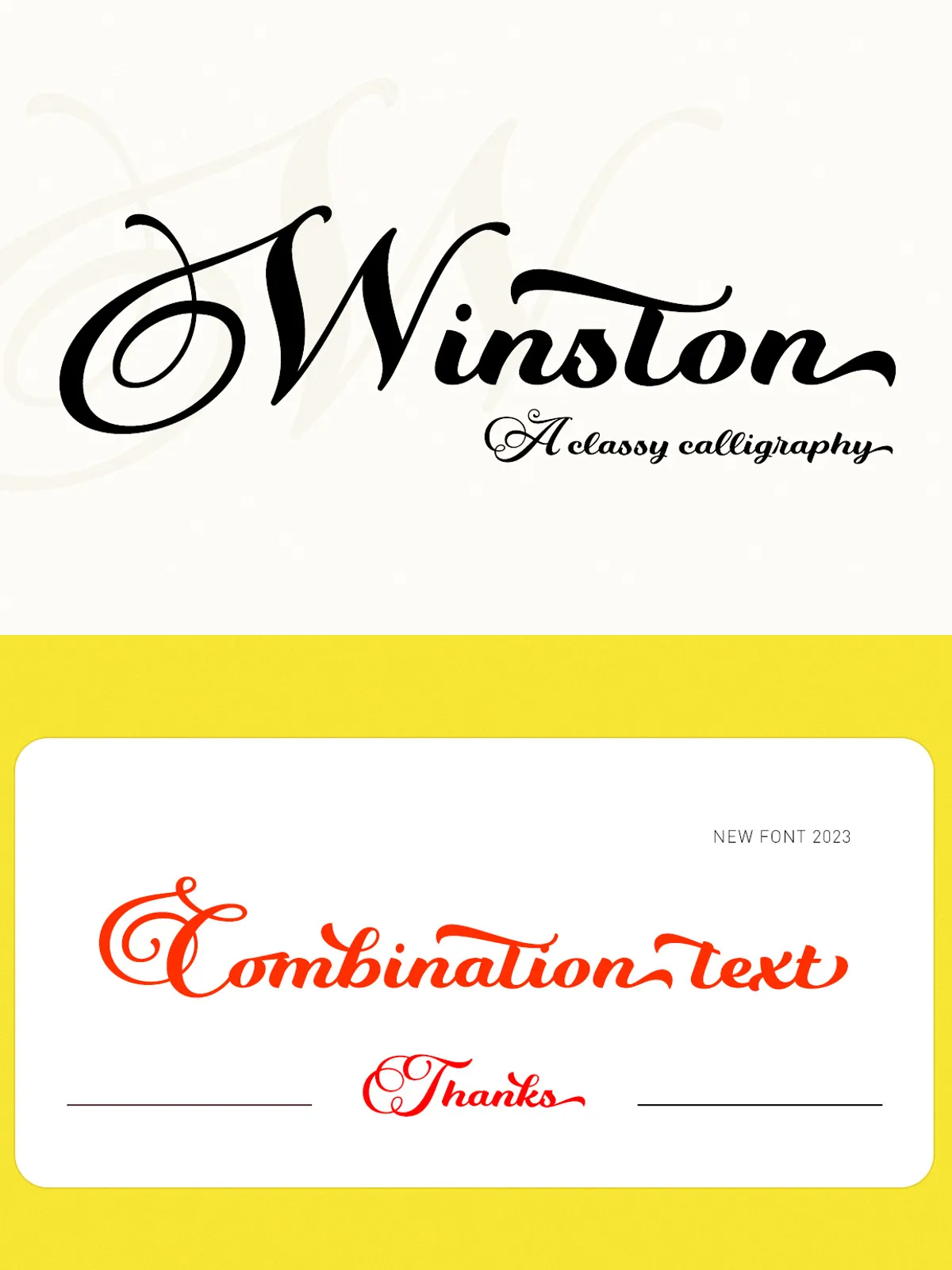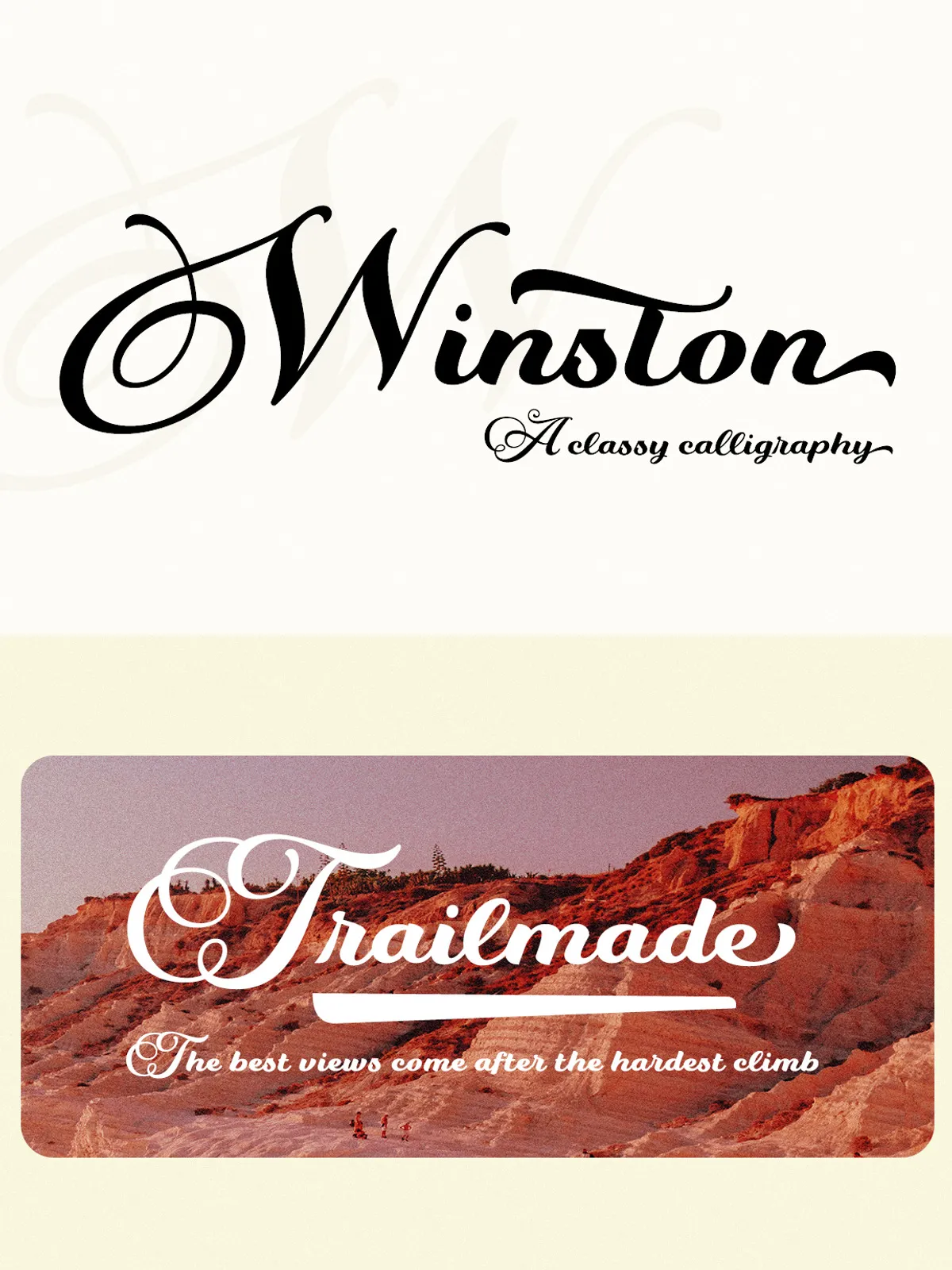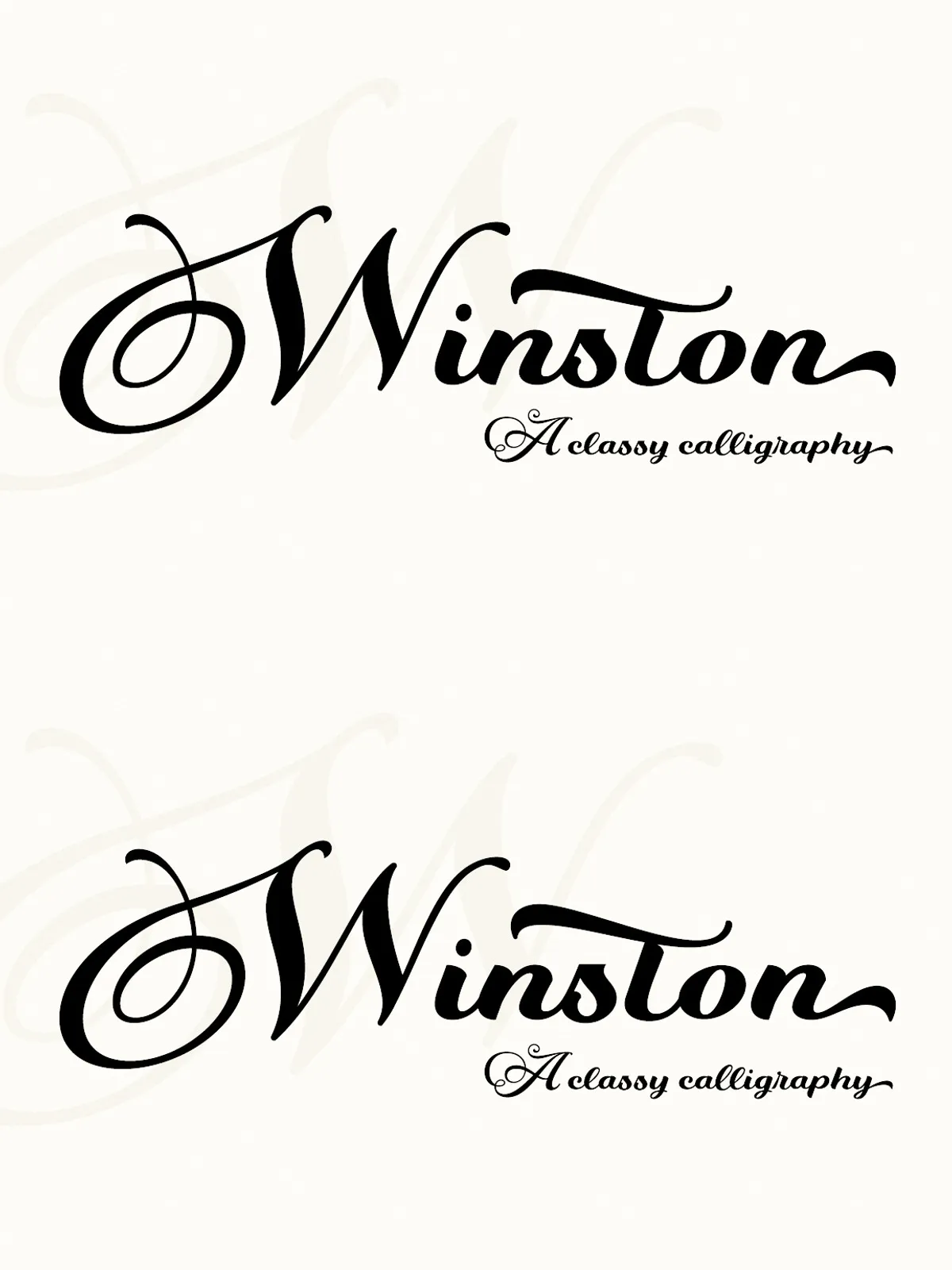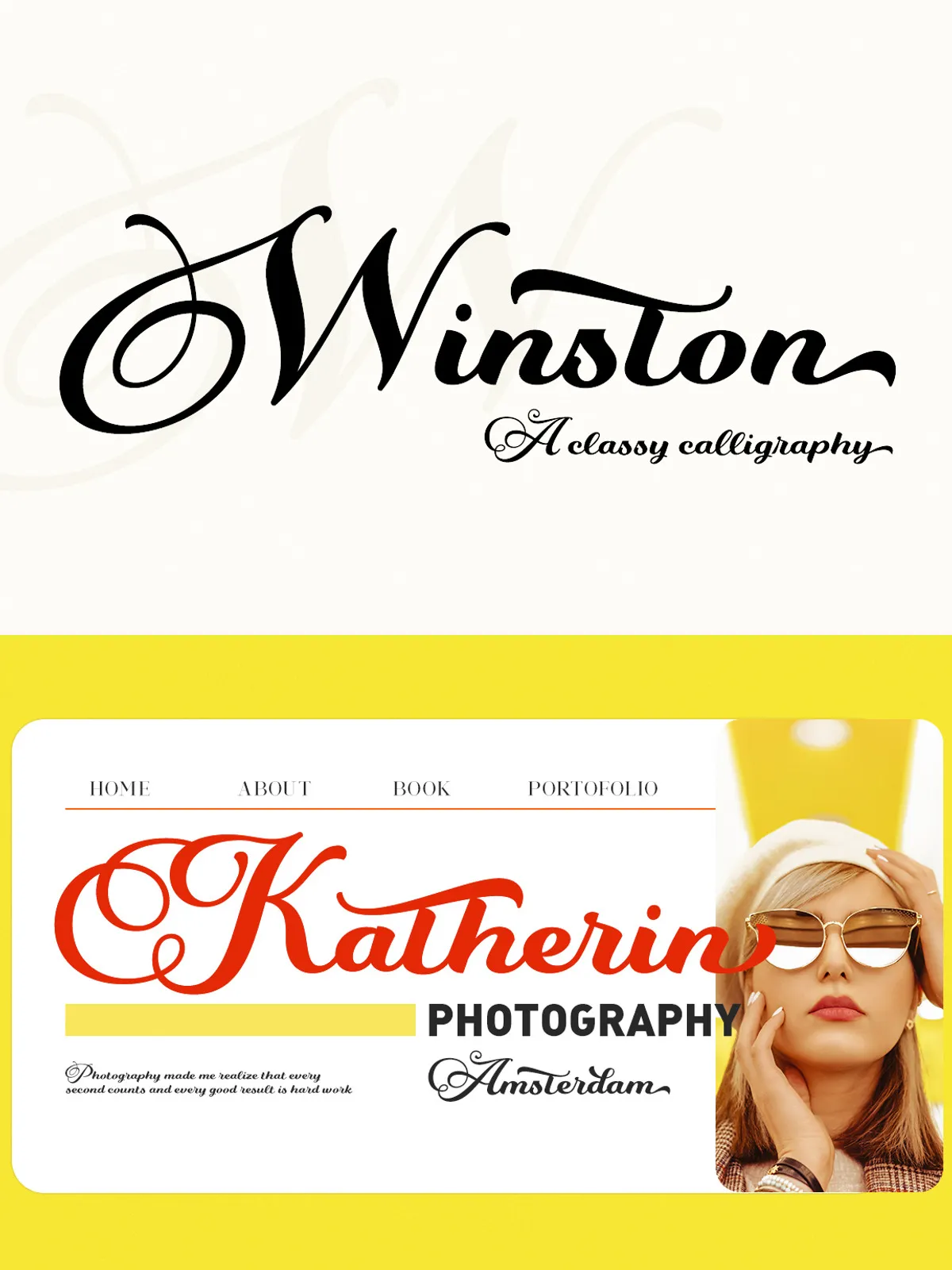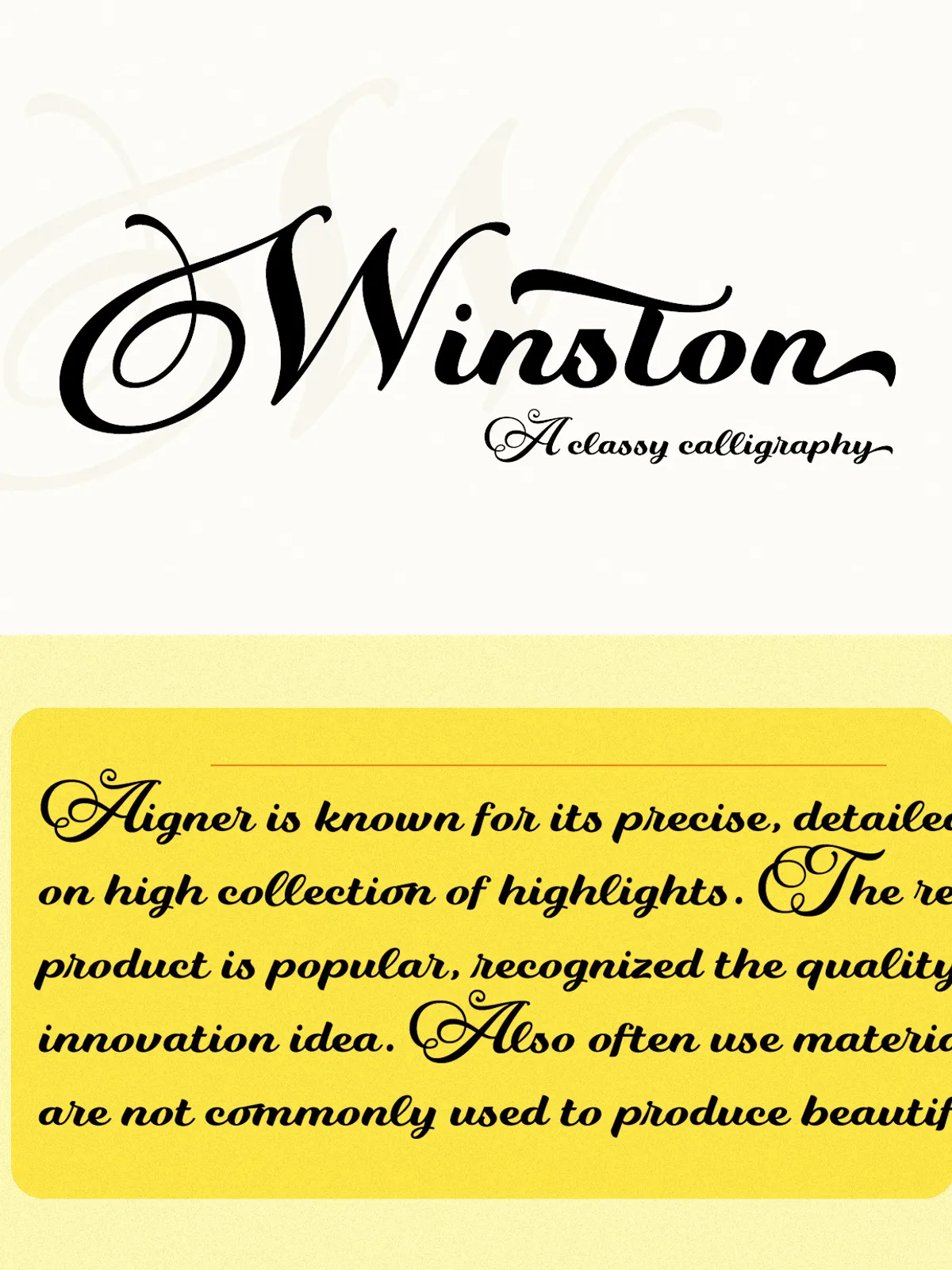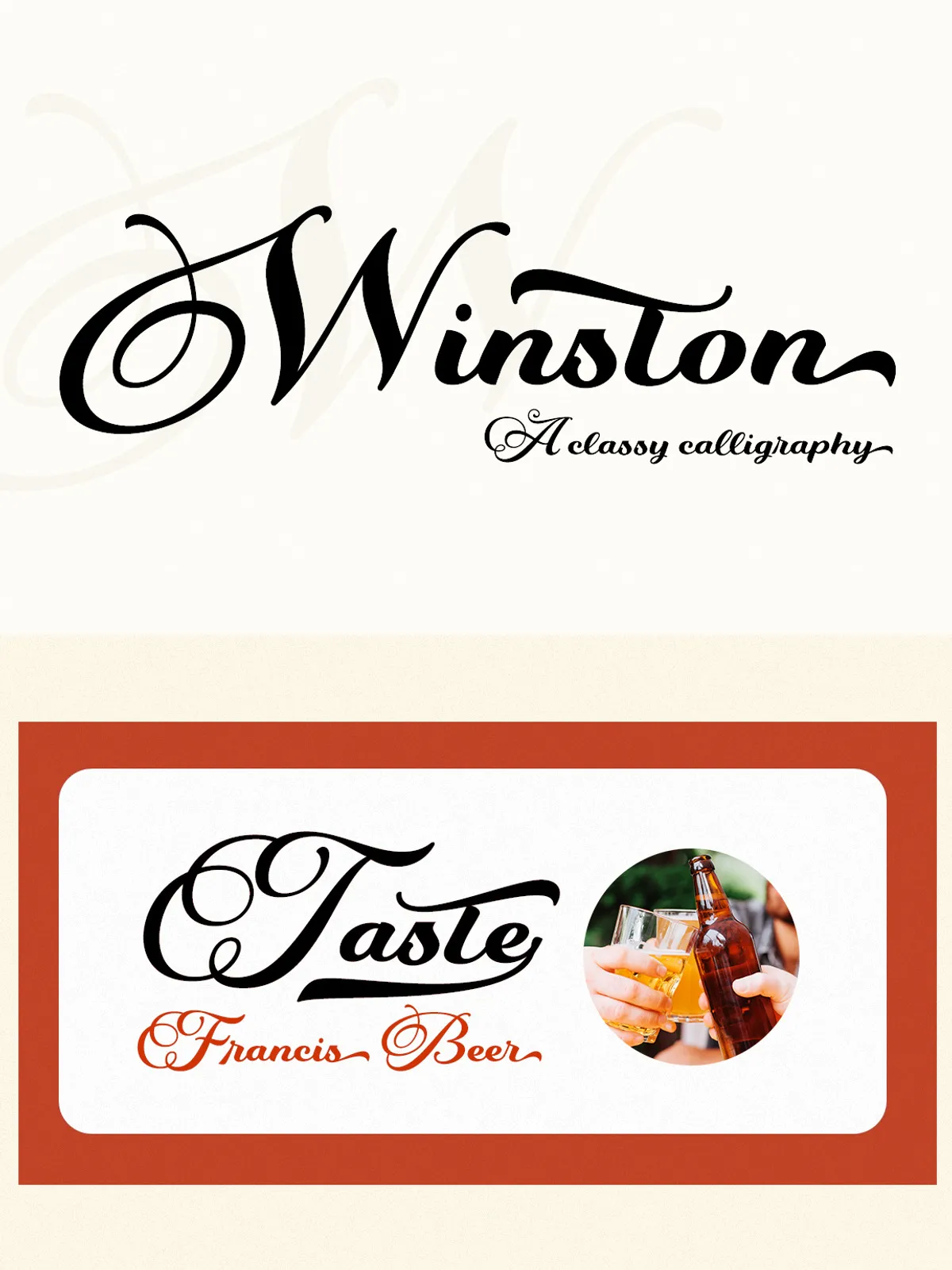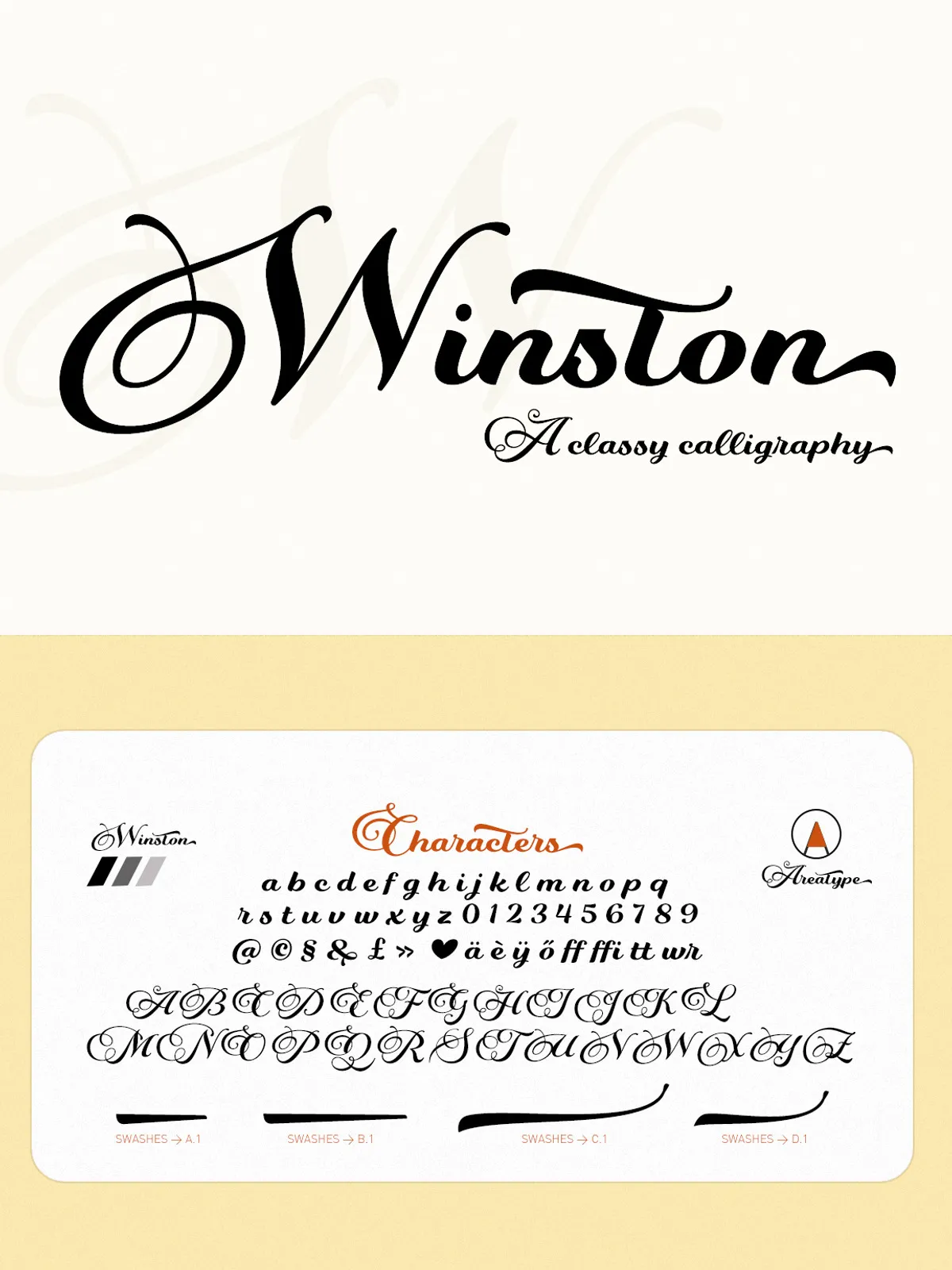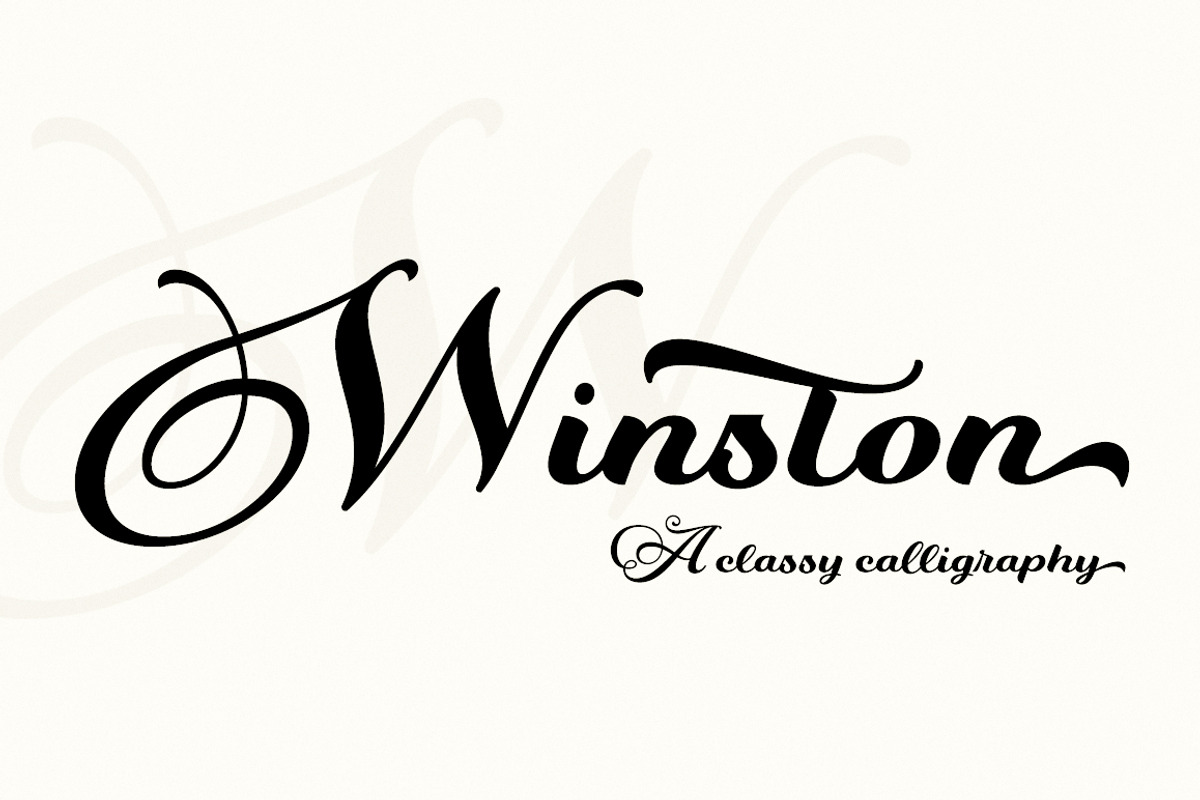
Winston Script
Meet Winston Script — a refined, expressive typeface crafted for creators who demand both sophistication and versatility. Whether you’re designing a luxury wedding invitation, crafting editorial content for a high-end magazine, or building a bold brand identity, Winston Script brings a touch of graceful artistry to every project. This isn’t just a font — it’s a design partner that transforms words into visual storytelling.
With its naturally flowing strokes, subtle flourishes, and carefully balanced proportions, Winston Script delivers the human touch of hand-lettered calligraphy without sacrificing precision. Each character has character, rhythm, and soul — making your design feel intentional, expressive, and deeply personal.
Designed for Every Creative Demand
Winston Script is engineered to thrive across a wide range of applications, where aesthetic beauty meets functional design:
• Wedding Invitations & Stationery — Create unforgettable invitations, save-the-dates, and table cards that feel personal, romantic, and unforgettable. Winston Script adds warmth and elegance to every word.
• Magazine & Editorial Design — Use Winston Script for feature headlines, pull quotes, and article titles that command attention and elevate the reader’s experience. Perfect for lifestyle, fashion, and cultural publications.
• Branding & Logo Design — Build strong, memorable brand identities with a signature script that stands out. Ideal for boutique brands, luxury products, and creative studios seeking a refined, premium look.
• Poster & Print Campaigns — Make your posters, banners, and promotional materials visually striking. Winston Script’s dramatic presence ensures your message is seen — and remembered.
• Product Packaging & Labels — Add a handmade, artisanal feel to labels, boxes, or tags. Winston Script enhances perceived quality and conveys craftsmanship at first glance.
• Blog Headers & Social Media Graphics — Surprise your audience with elegant text overlays, quote cards, and post titles that feel curated and intentional. Stand out in a crowded digital space.
• Masterful Typographic Features for Creative Freedom
Winston Script goes beyond aesthetics — it’s packed with advanced typographic features to help you create professional-grade designs:
• Multiple stylistic alternates — Choose from unique letter variants for visual variety and rhythm.
• Swash and ligature support — Automatically connect characters for a continuous, flowing look that mimics real hand-lettering.
• Small caps & old-style numerals — Ideal for polished, editorial-grade typography.
• Positional figures — Enhance the visual harmony of numbers in headers and captions.
Flawless Performance Across All Platforms
Whether you’re designing for print or digital, Winston Script holds its ground with precision and clarity. Fully optimized for high-resolution output, it renders beautifully in print on premium paper and remains sharp on retina displays and mobile devices. From business cards to large-format posters, from PDFs to web banners — the font maintains its integrity at every size and scale.
Available in multiple weights and styles including Regular, Bold, and Extra Bold, Winston Script allows you to build strong typographic hierarchy — guiding the reader’s eye with intention and impact.
In a world of generic, homogenized fonts, Winston Script dares to be different. It’s not just a typeface — it’s an invitation to design with emotion, grace, and intention.